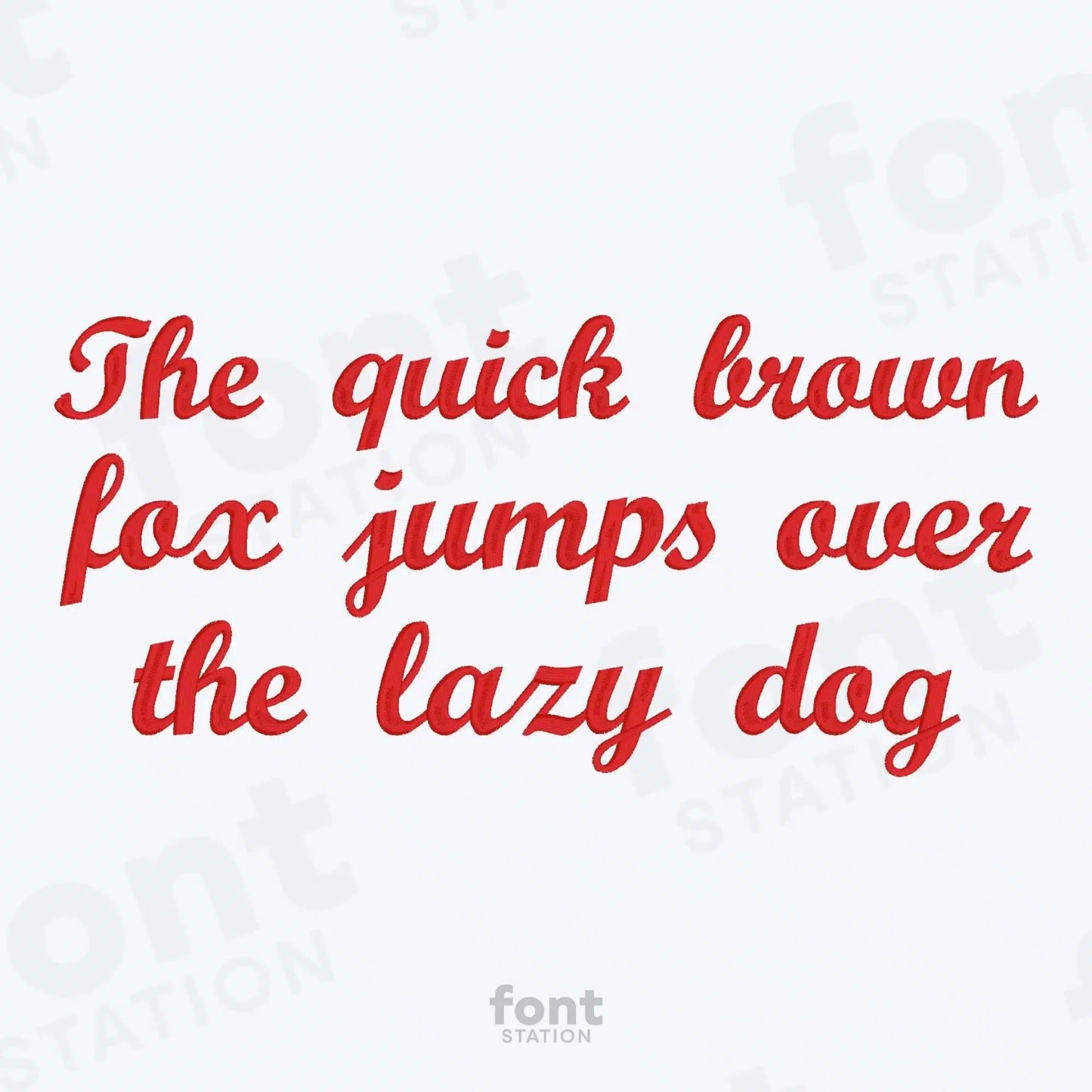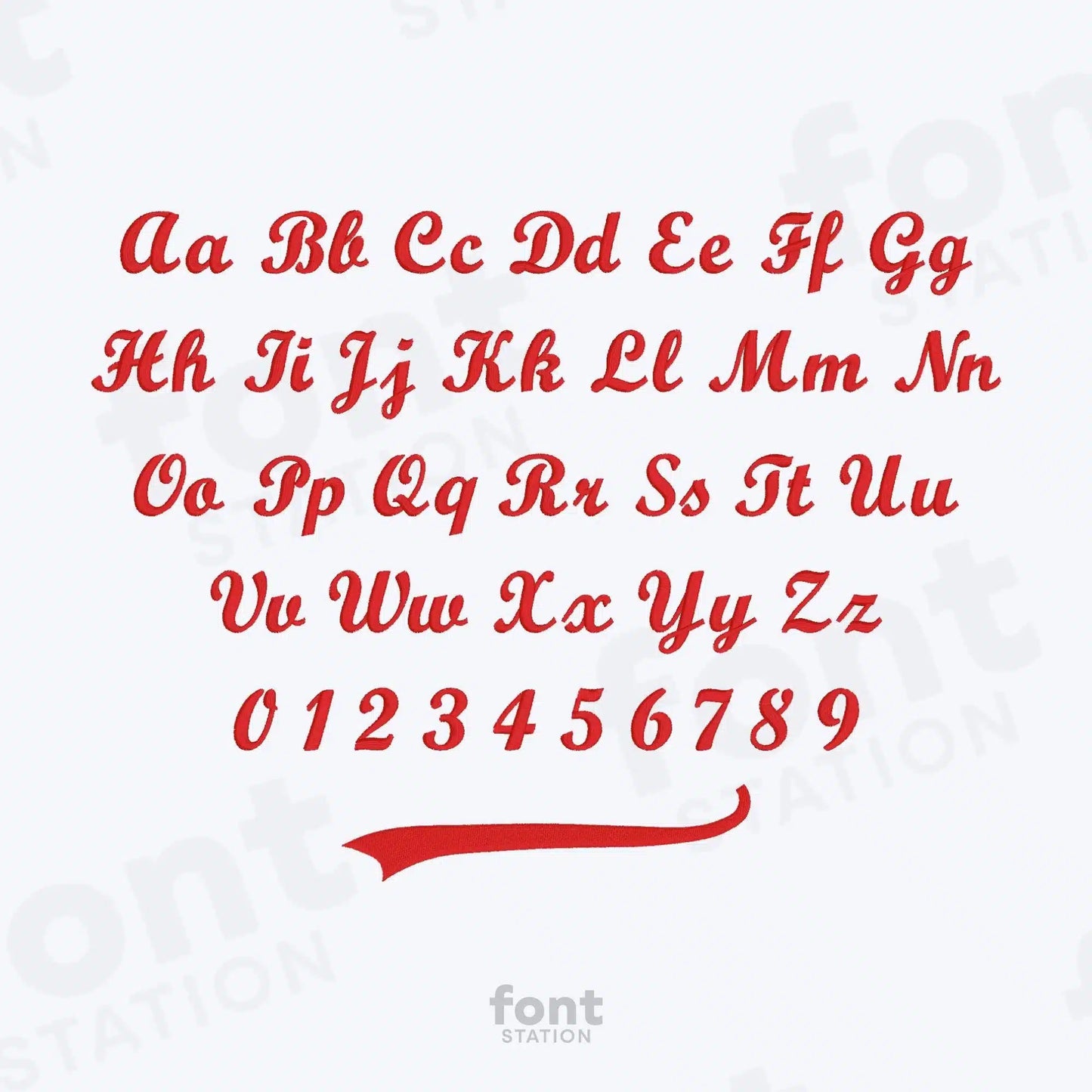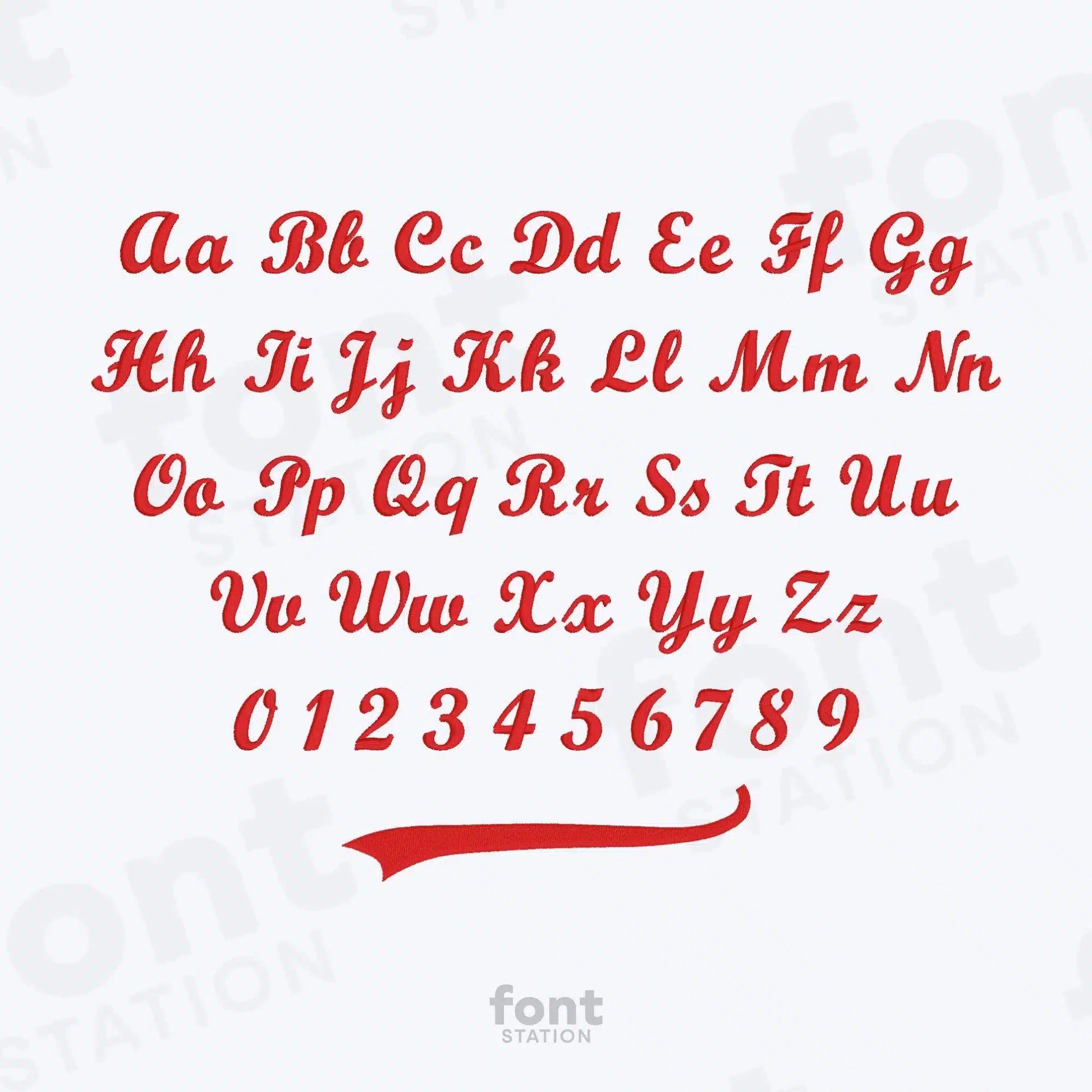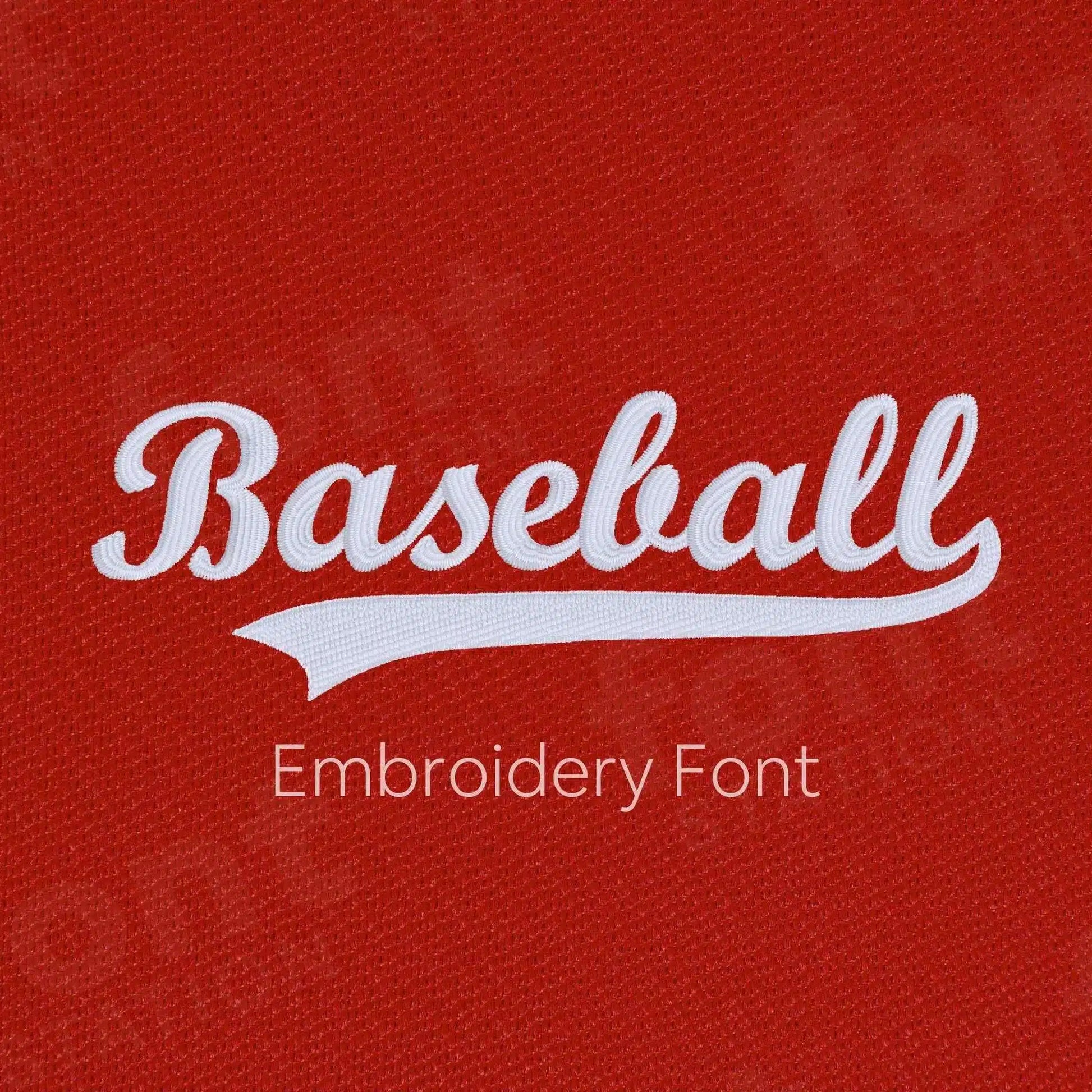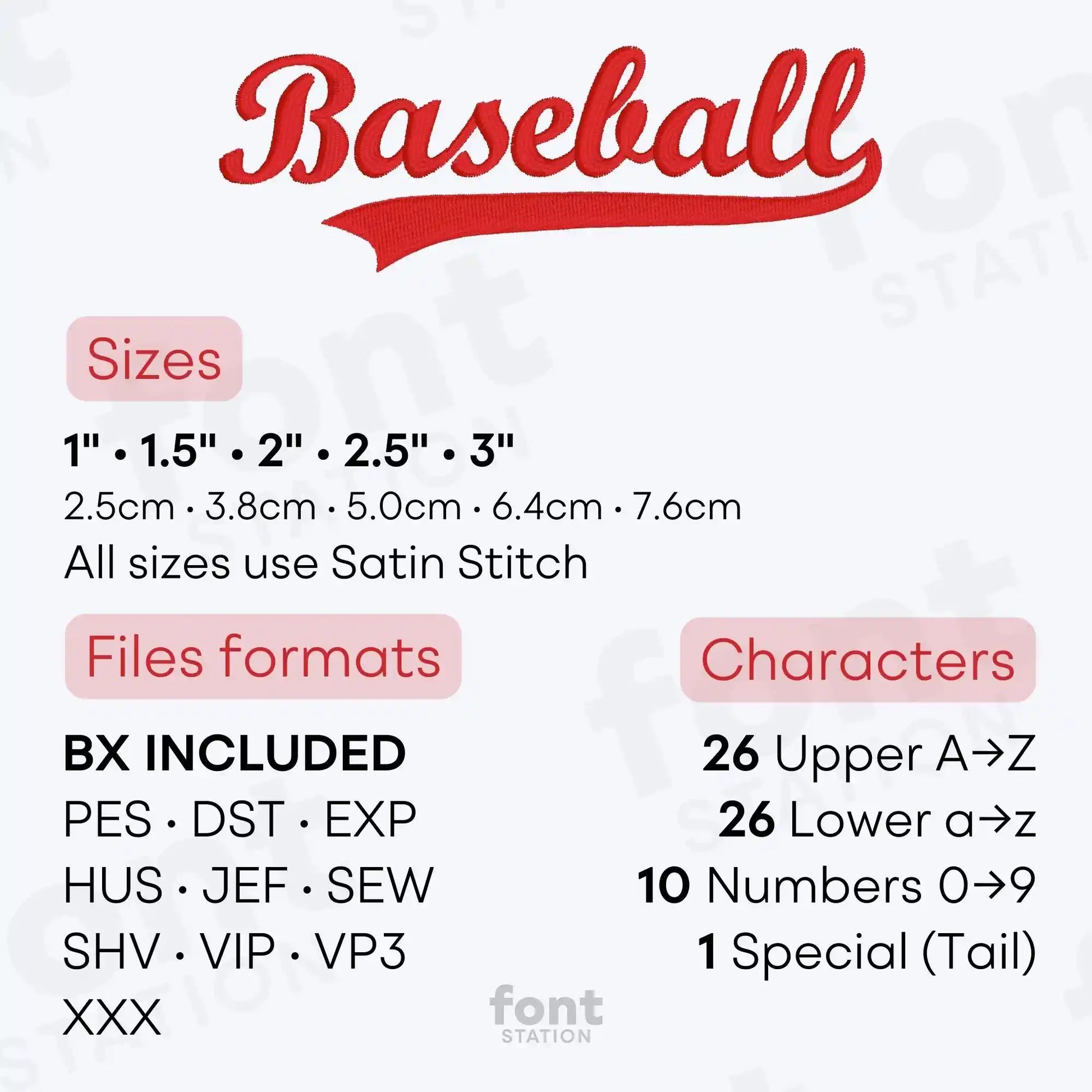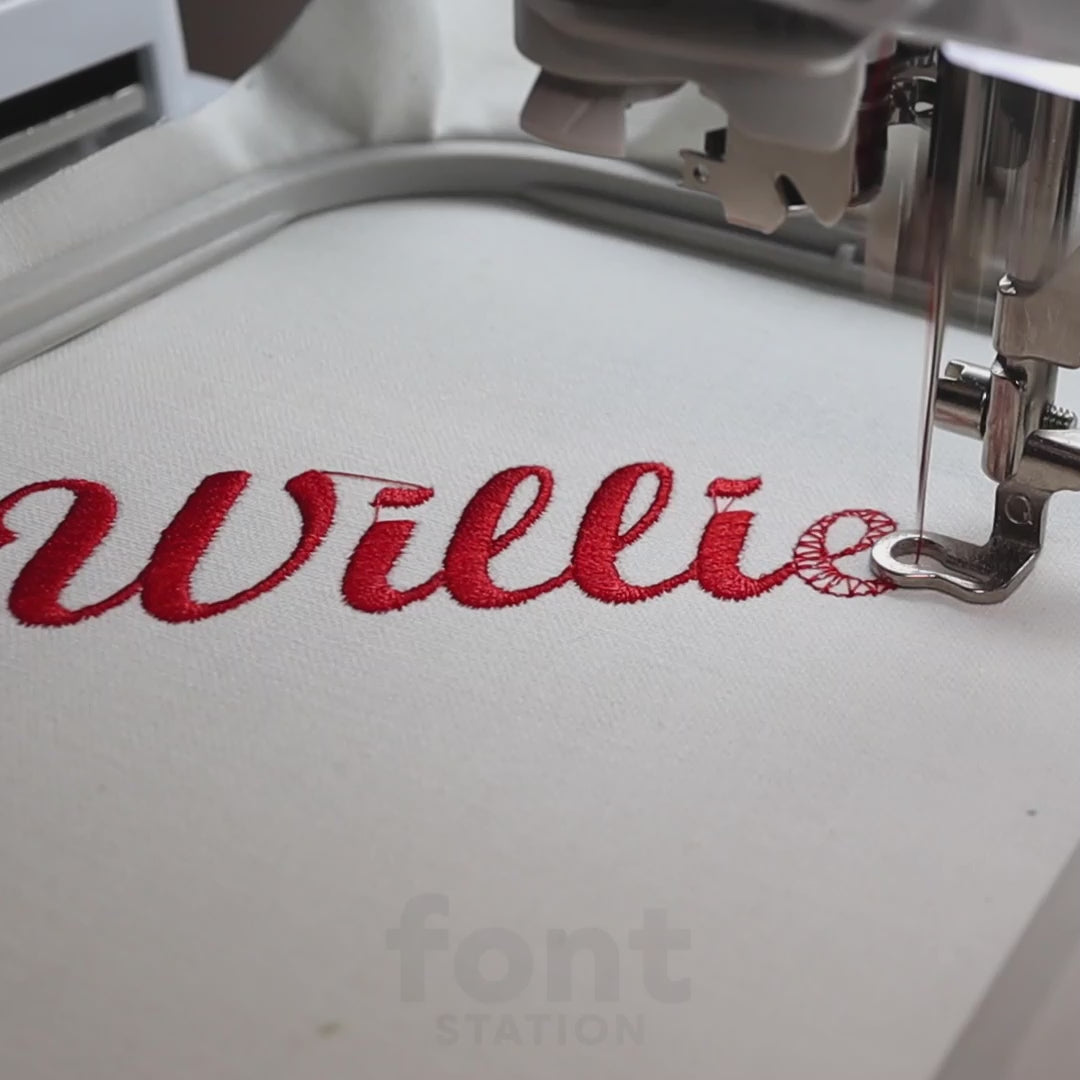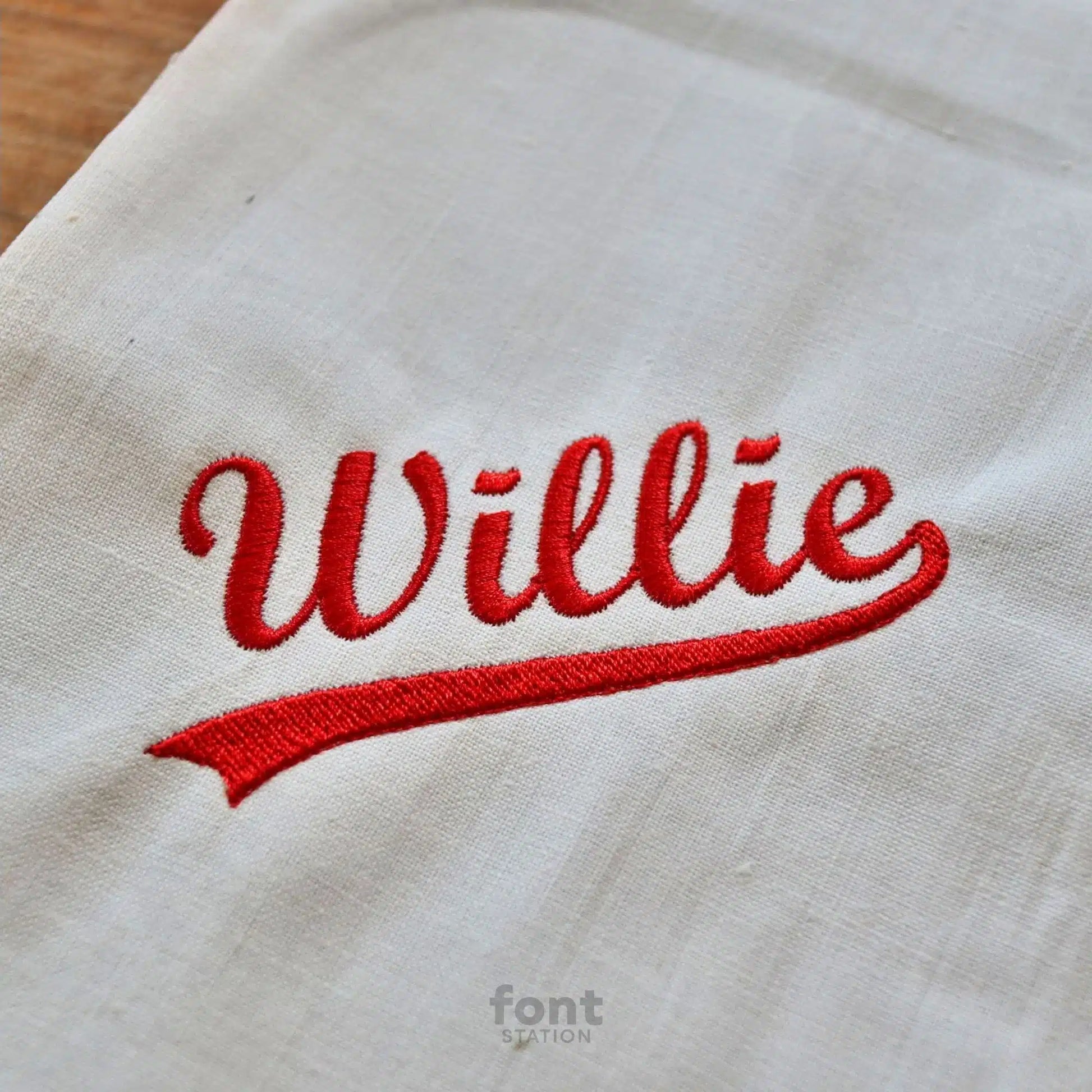
Baseball Embroidery Font
Our Baseball embroidery font is the perfect addition to your collection! Give your creations a sport touch with our machine-ready letters.
About the Baseball Embroidery Font
Add a sporty edge to your projects with our Baseball embroidery font!
Personalize your embroidery projects with our script Baseball embroidery font, perfect for team gear, jerseys, and sporty gifts. Professionally digitized for clean, high-quality stitching on most fabrics, this font brings a classic athletic style to your designs. It's a customer favorite for sports-themed embroidery, and we can't wait to see what you create with it!
I truly hate to do a mediocre review because your shop is rated so highly, but apparently the digitizing was off in several areas of the stitching. Zoom in if necessary to spot the areas. My customer was very understanding but I will not feel comfortable using this design again. It was the 3” size. I can only submit one photo but there are several areas where the stitching outline is showing throughout the entire design.
I bought this font to do team jackets for my cousin. Stitches out perfectly and I love that you get a variety of sizes.
It stitched out really nice but my only issue is that the O looks like an A. And if the design I was using it didn’t work for me.
This font turned out great. A little tricky on the smaller items. Stitched out great on the sweatshirt.
Cute baseball design and it stitched out fine. But the lower case o looks like an a. I wrote the word Rookie and had to use another font for the o’s.
Stitched out great!
Finally go around to stitch it out, it came out great. I recommend.
Font was perfect for my softball key fobs.
The name I needed had a G and Y and the tail will not work with letters that also have a tail.
loved the stitching and font
Did a trial run with some scrap fabric & it cane out great!
stitched great on my hat
Great design, stitched out as expected!